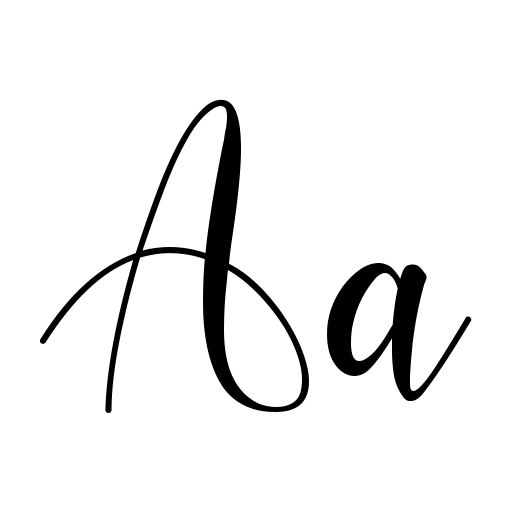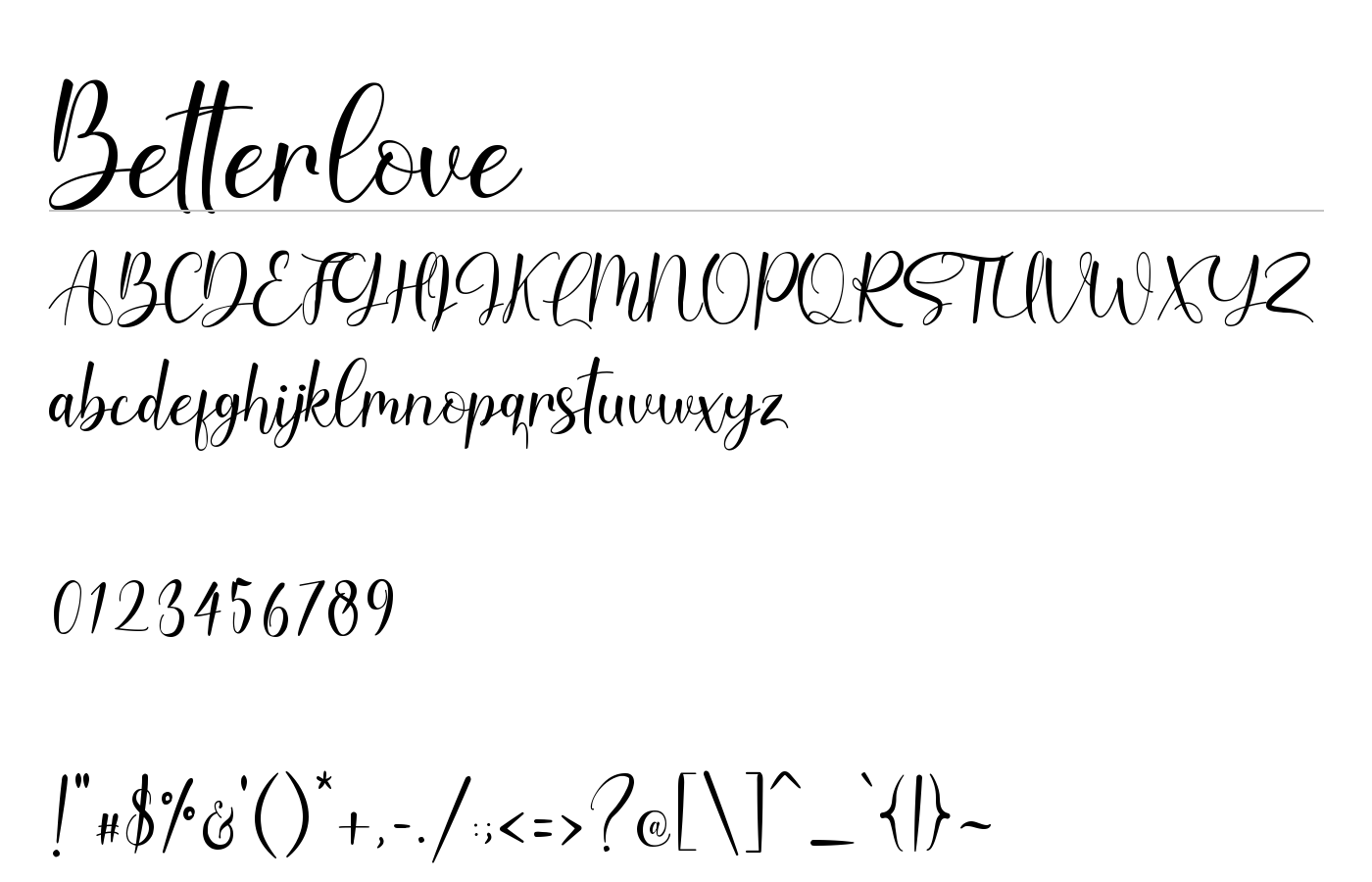
Betterlove is a graceful script font with elegant, flowing strokes that blend a modern calligraphic style with playful charm. Its slender, smooth letterforms and slightly varied stroke thickness create an inviting, handwritten feel ideal for romantic or feminine branding, invitations, and creative headlines. This font works beautifully where a touch of sophistication and warmth is needed.
Betterlove Font
About Betterlove Font
| Font family | Betterlove Font |
| Designer | Creaditive 2021 |